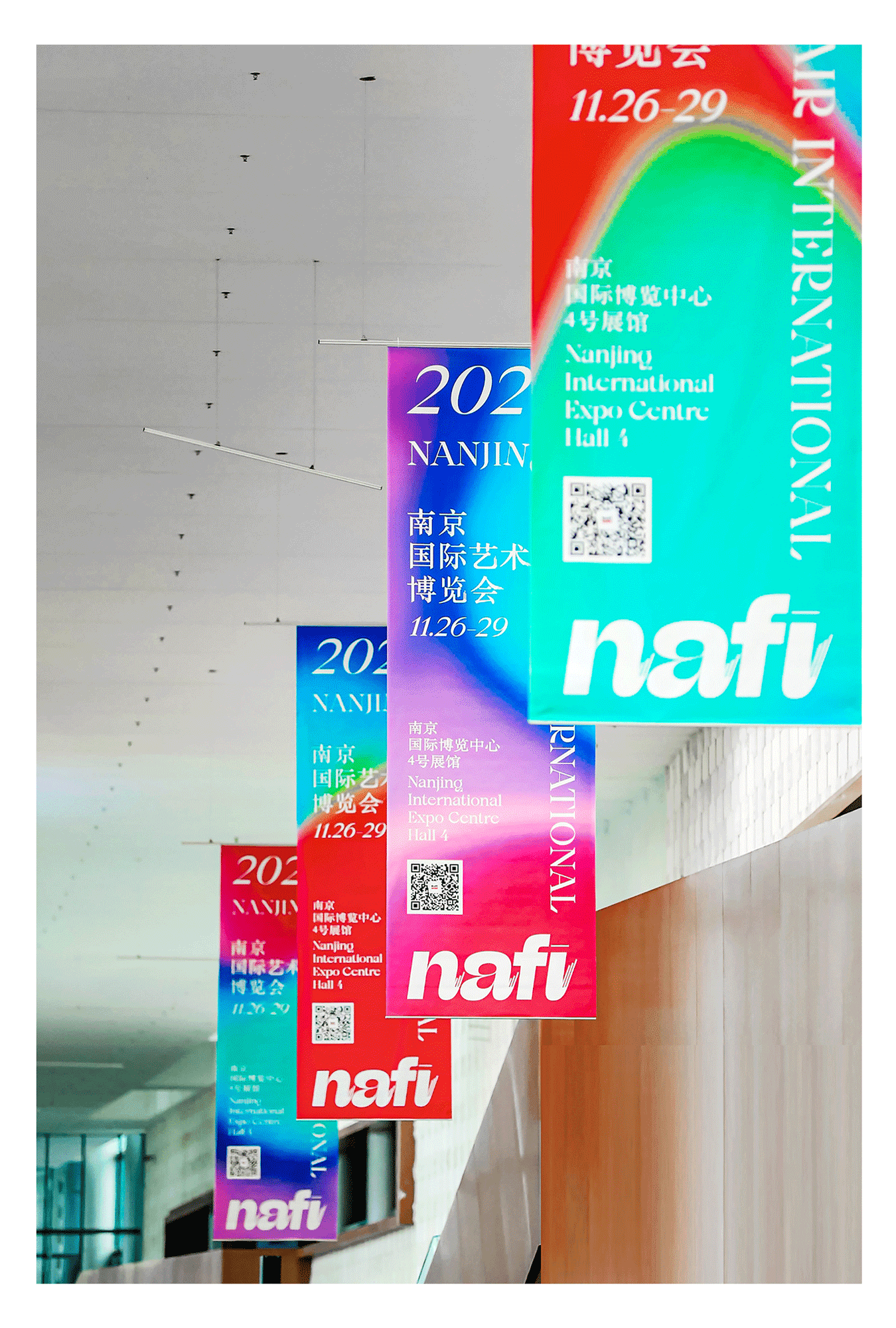
The Nanjing International Art Festival (NJIAF) is an annual art festival that takes place in Nanjing of the Jiangsu province in China. For the 2020 fair, our friends at Untitled Macao designed the identity which includes a custom logotype using Beatrice Display.
The branding includes whirlwinds of vibrant colors and gradients, a signature move by the studio. To pair, the logotype takes a slightly unconventional approach by turning an all-caps acronym into an all-lowercase lockup. Beatrice Display Italic’s lowercase characters by design have high-contrast strokes that exit with drama. The designers played on this element by including additional exit strokes to each character, resembling the whisker-like effects produced from dry brushstrokes. These details were also applied to the Chinese typefaces to pair.
Typeface: Beatrice Display